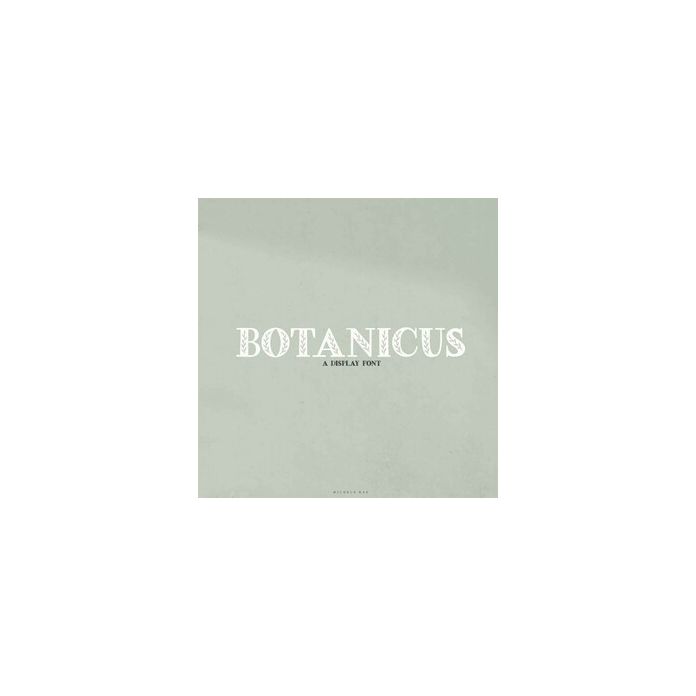
Botanicus is a decorative font that can be used for logos, branding, social media, quotes and so much more! Remember includes uppercase and lowercase letters, numerals, punctuation, ligatures and alternates. You will also receive the font in Black.